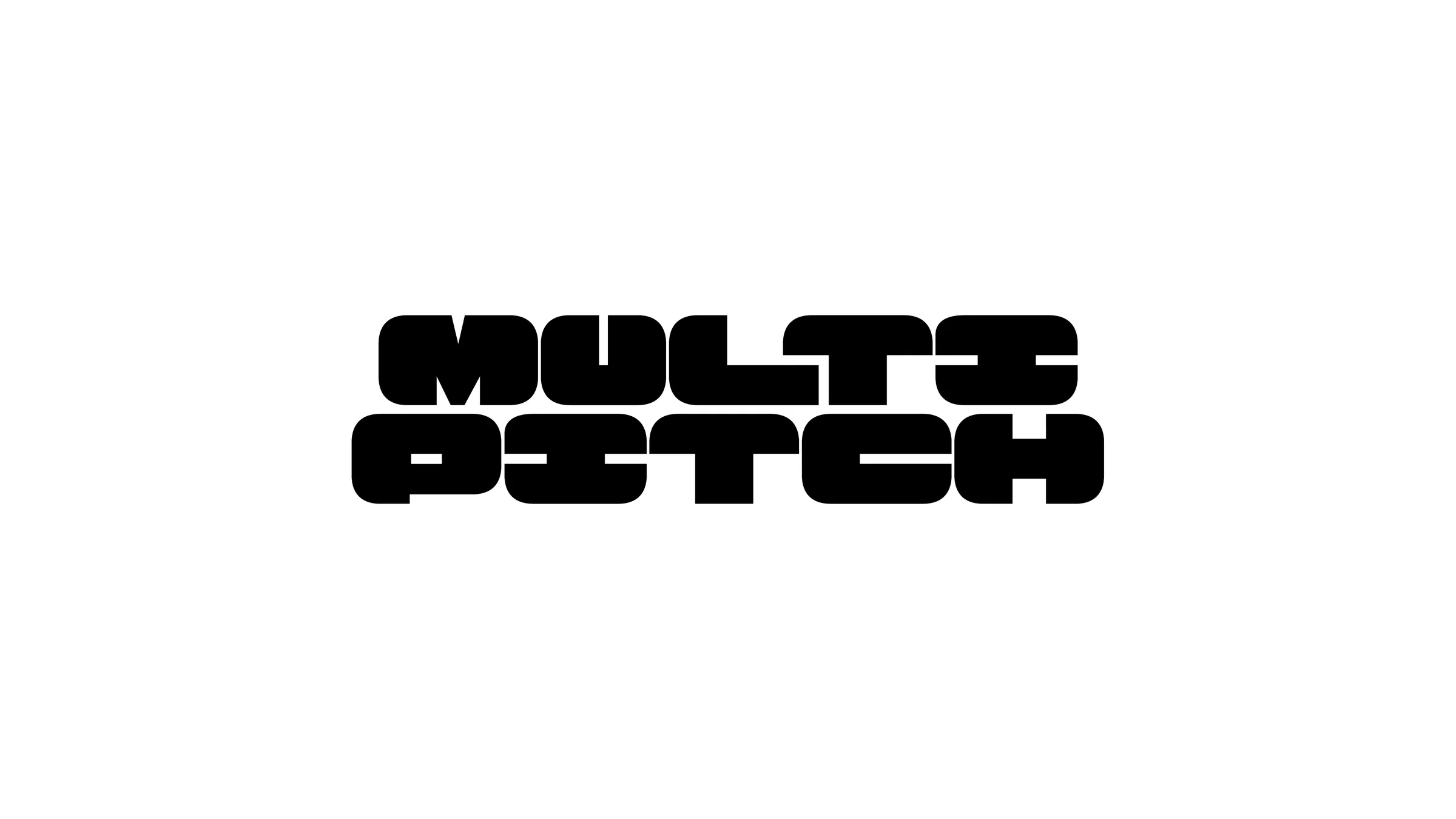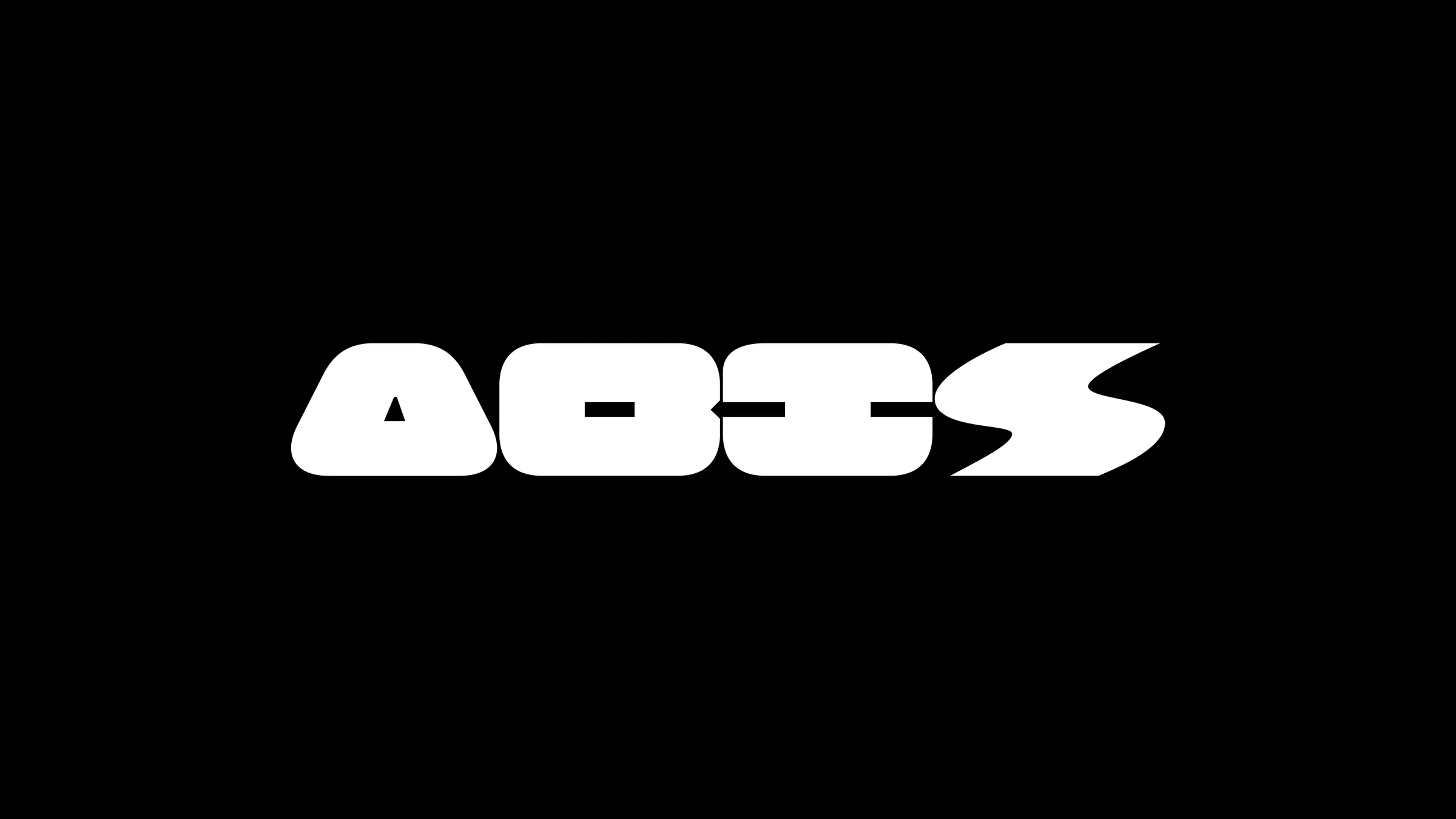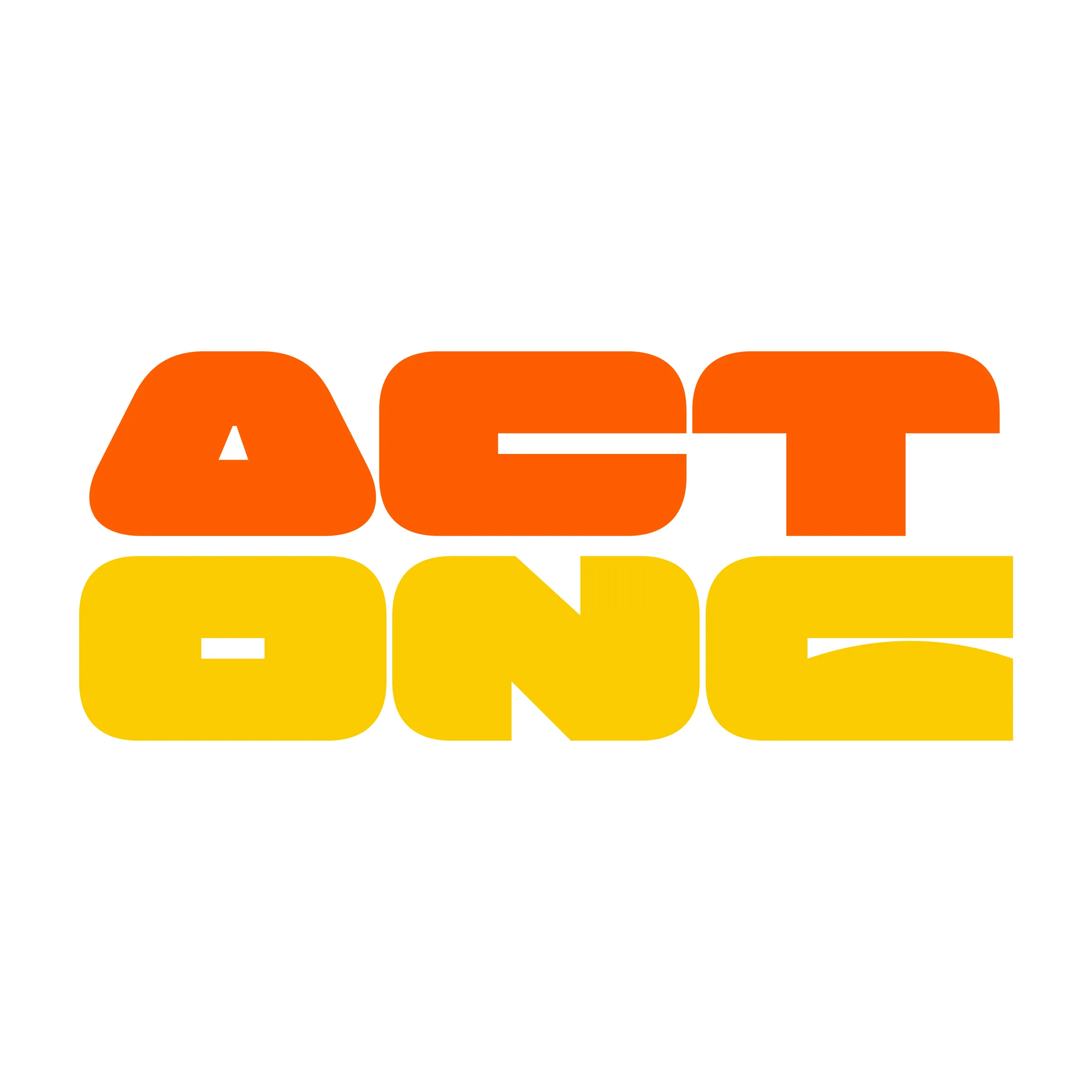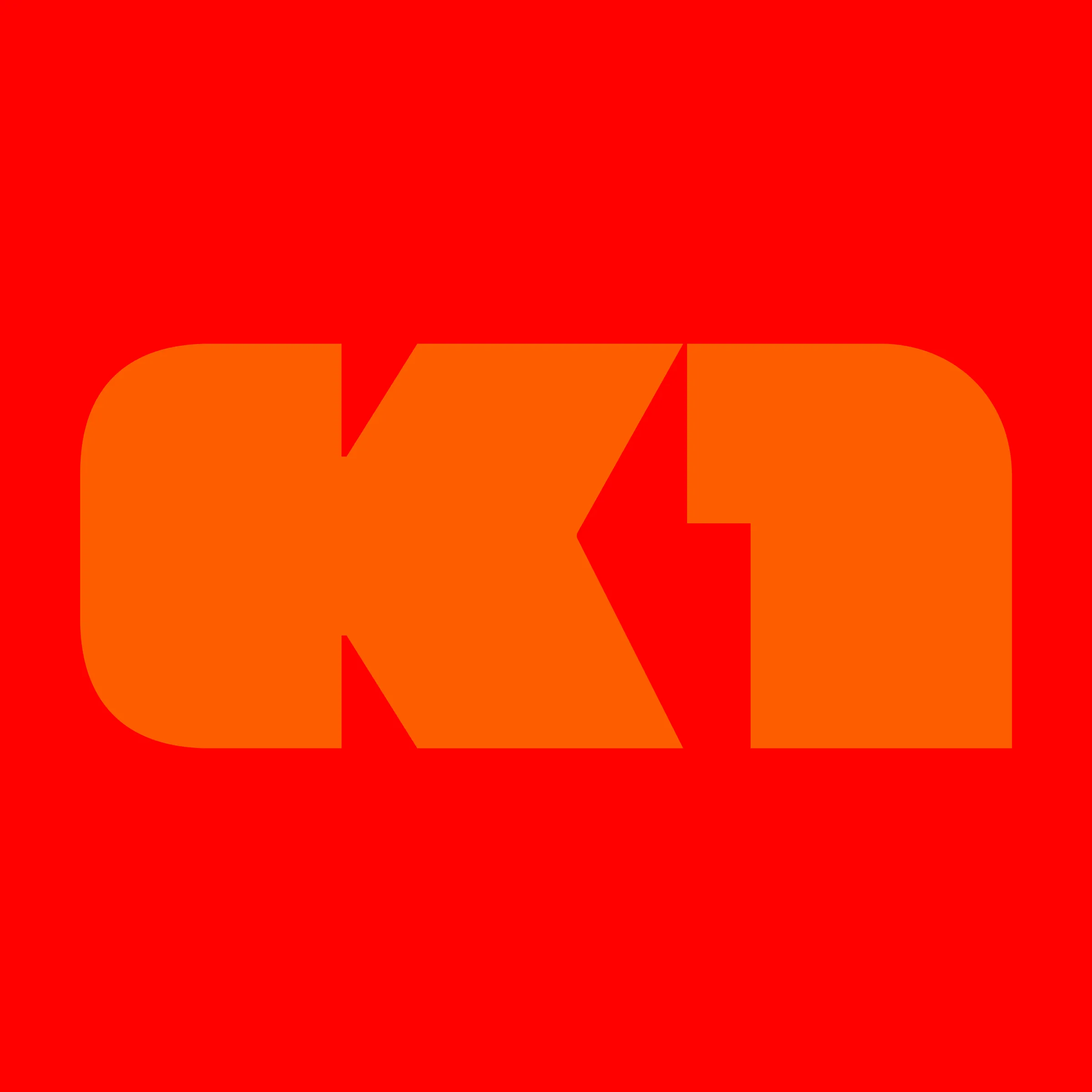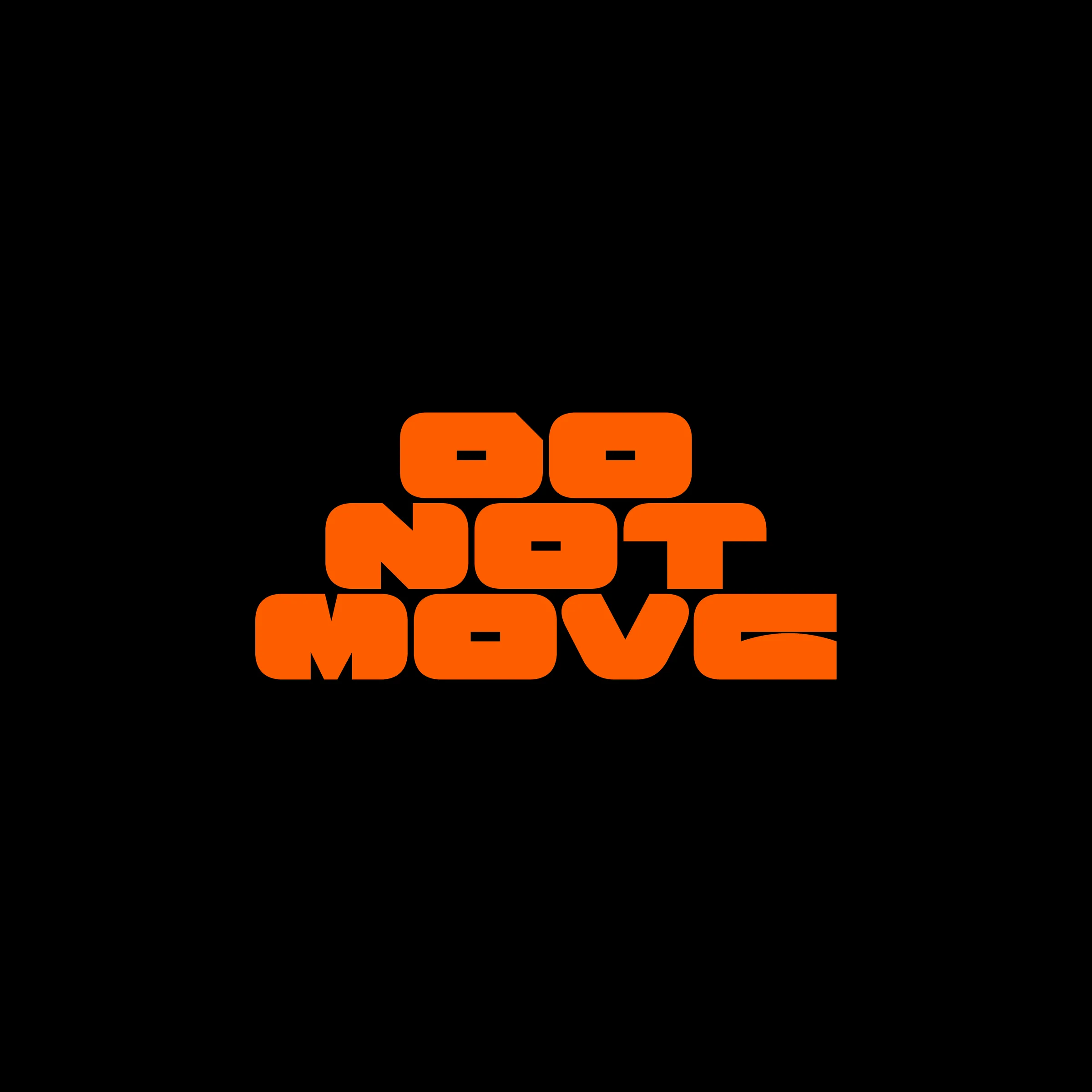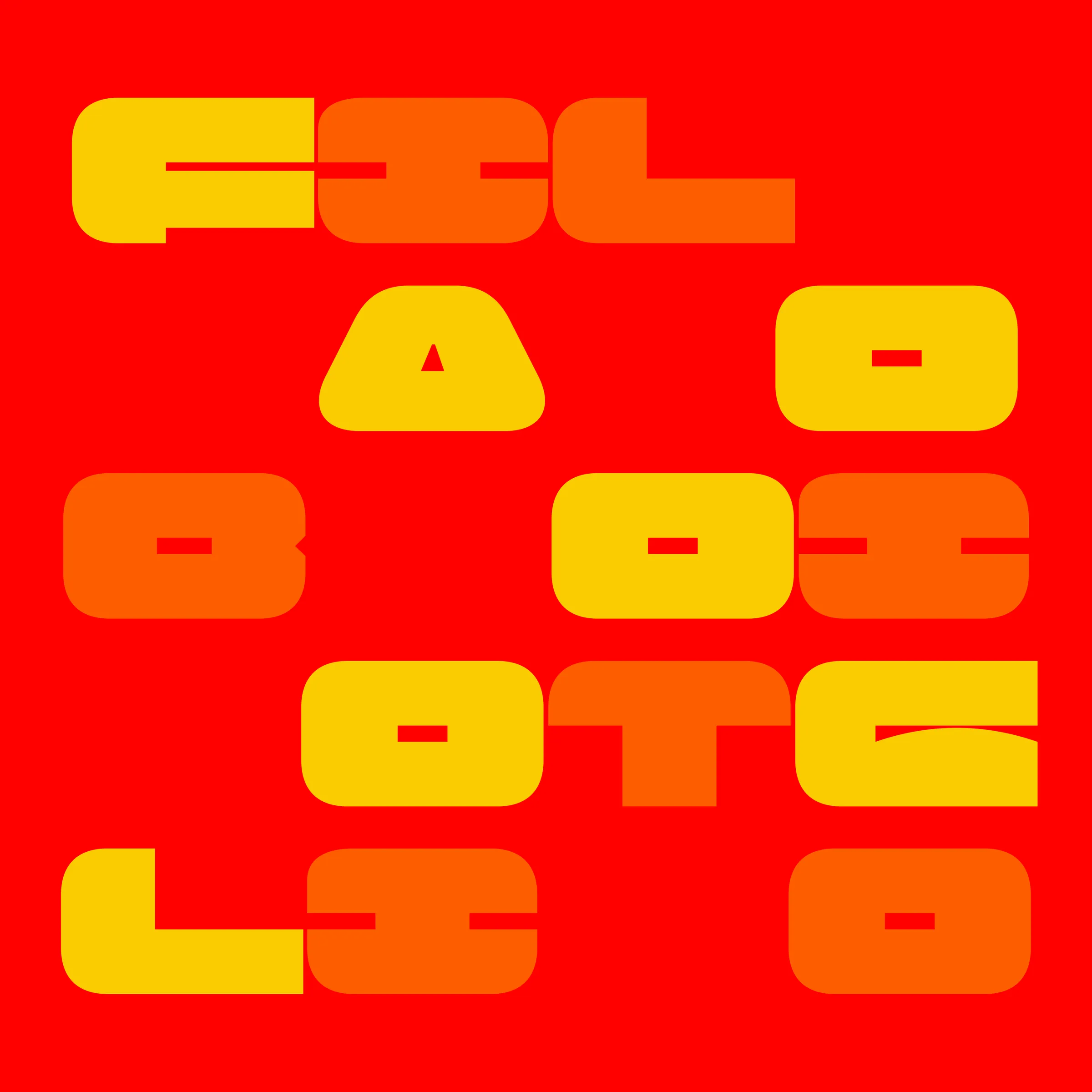
Alpi is a display typeface designed in 2019 initially as a logo for a group of high-altitude sportsmen. With the name already indicating the nature of their activities, the shapes had to emphasise notions of safety, technique and solidity to reflect the qualities of its members. The result is an extremely wide typeface, with compact, solid proportions, where each letter becomes a stone to which the next letter can be attached. Geometry is emphasised in many glyphs, varying from rounded areas to much sharper ones. The typeface is therefore best used for logotype design or for headlines on posters and magazines. Several alternates and ligatures are available in the set to give further possibilities for this kind of use.